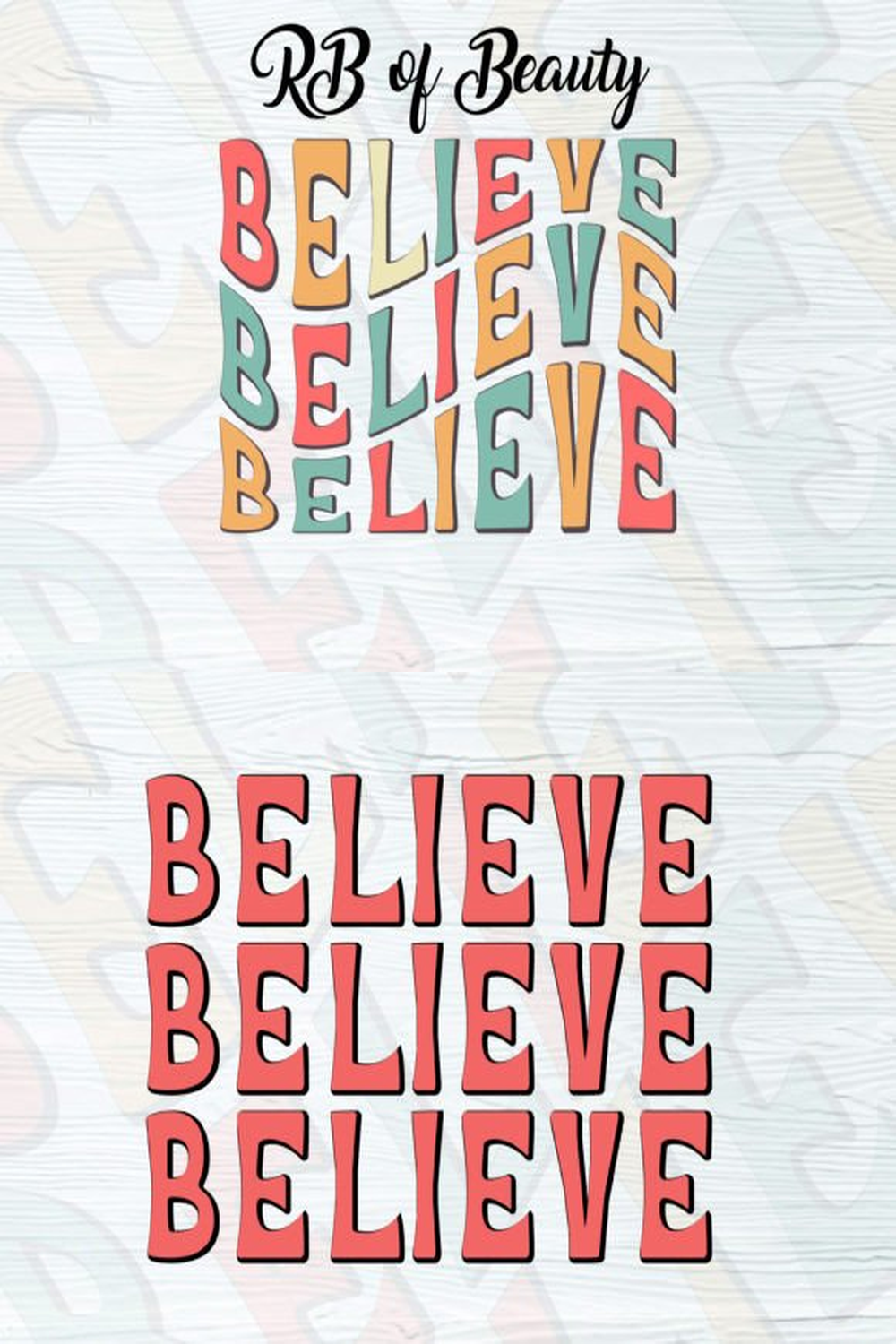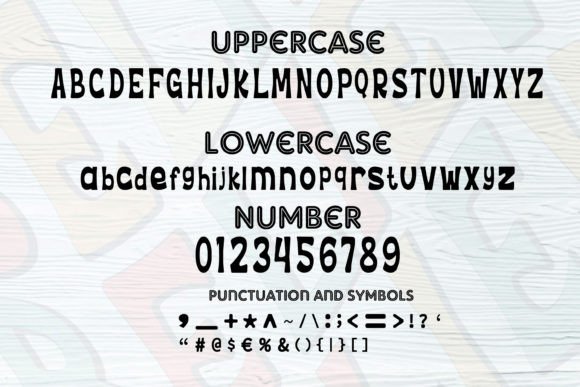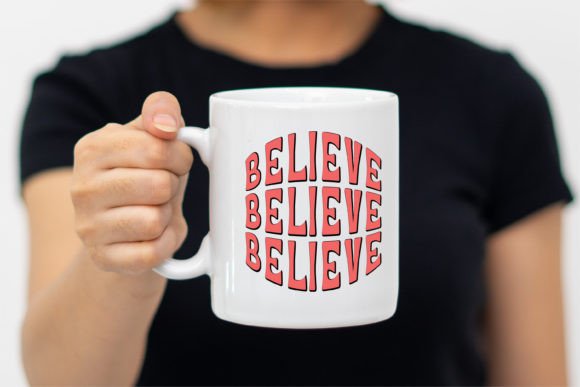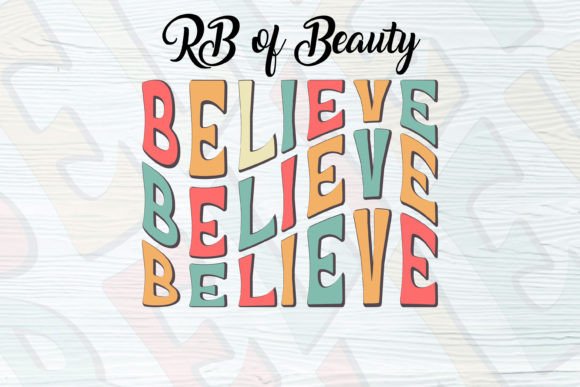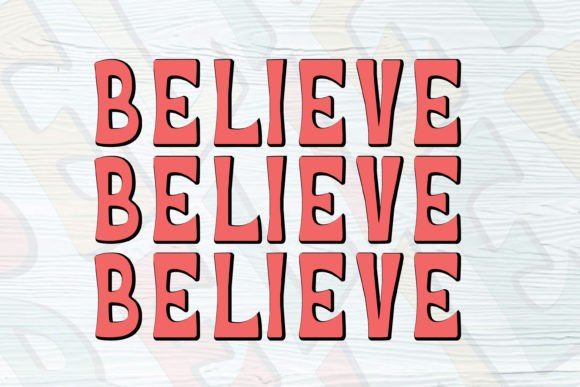
Rb of Beauty Font
About the Rb of Beauty Font
Add a touch of class to your work with the Rb of Beauty Font, a truly exceptional typeface. Introducing RB of Beauty, a Groovy font that’s a visual delight. RB of Beauty exudes an irresistible charm with a wave-like effect and a vibrant triple rainbow color scheme. Its playful yet chic appeal lends a unique character to projects, making it a top choice for those craving a dose of retro-inspired charm. Embodying the latest design trends, Simple Stacked promises to invigorate your creations with fun and style. This is not just a font, it’s a design mainstay that can bring any concept to life.